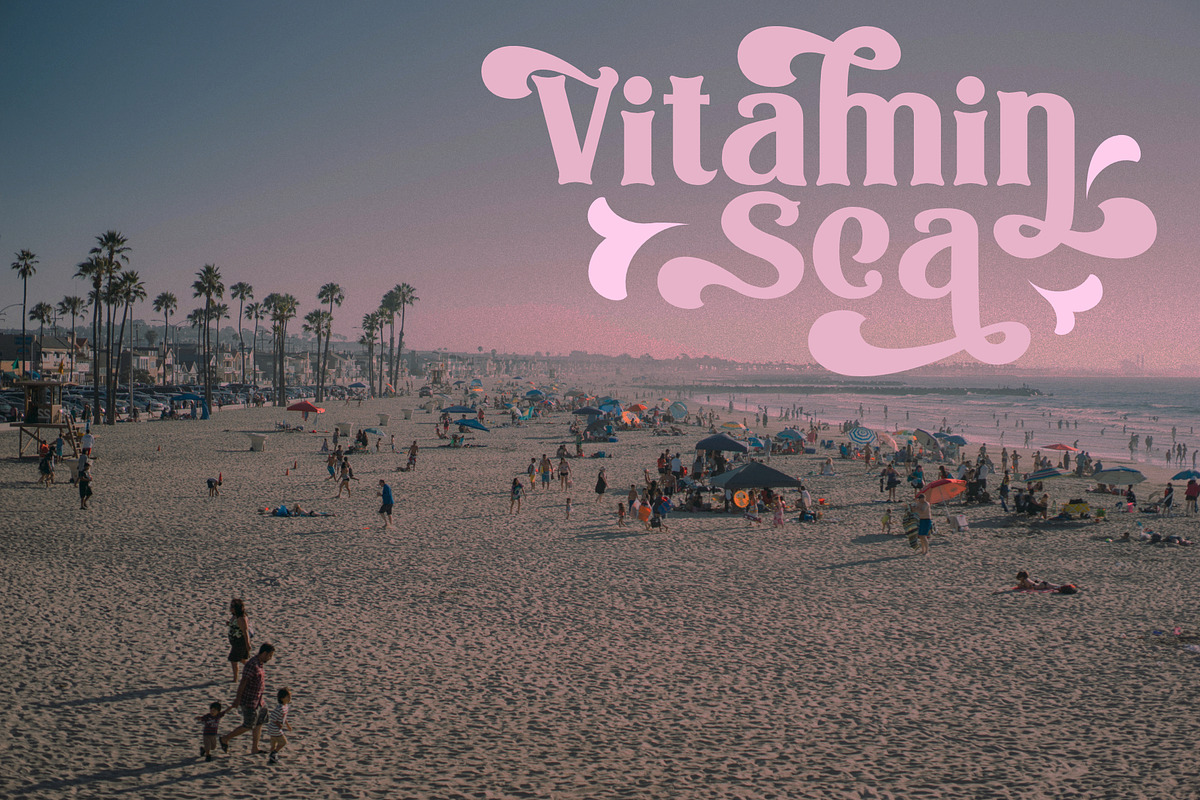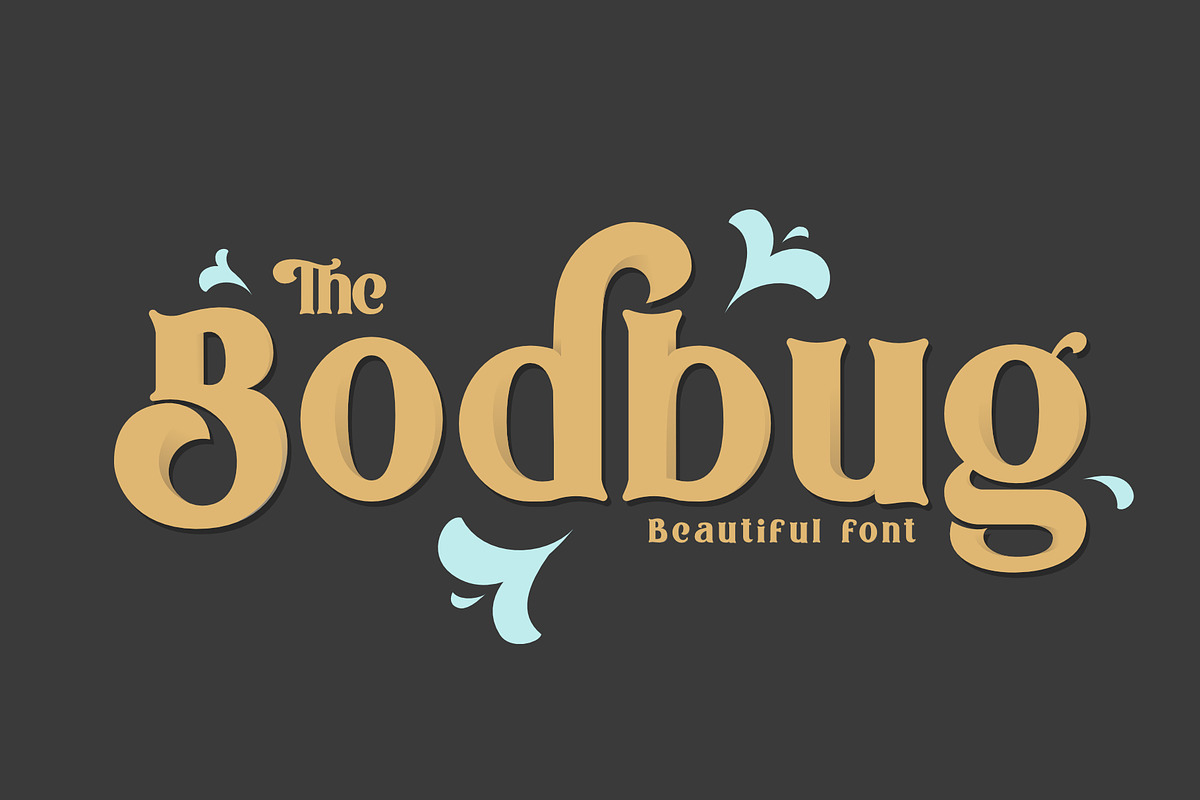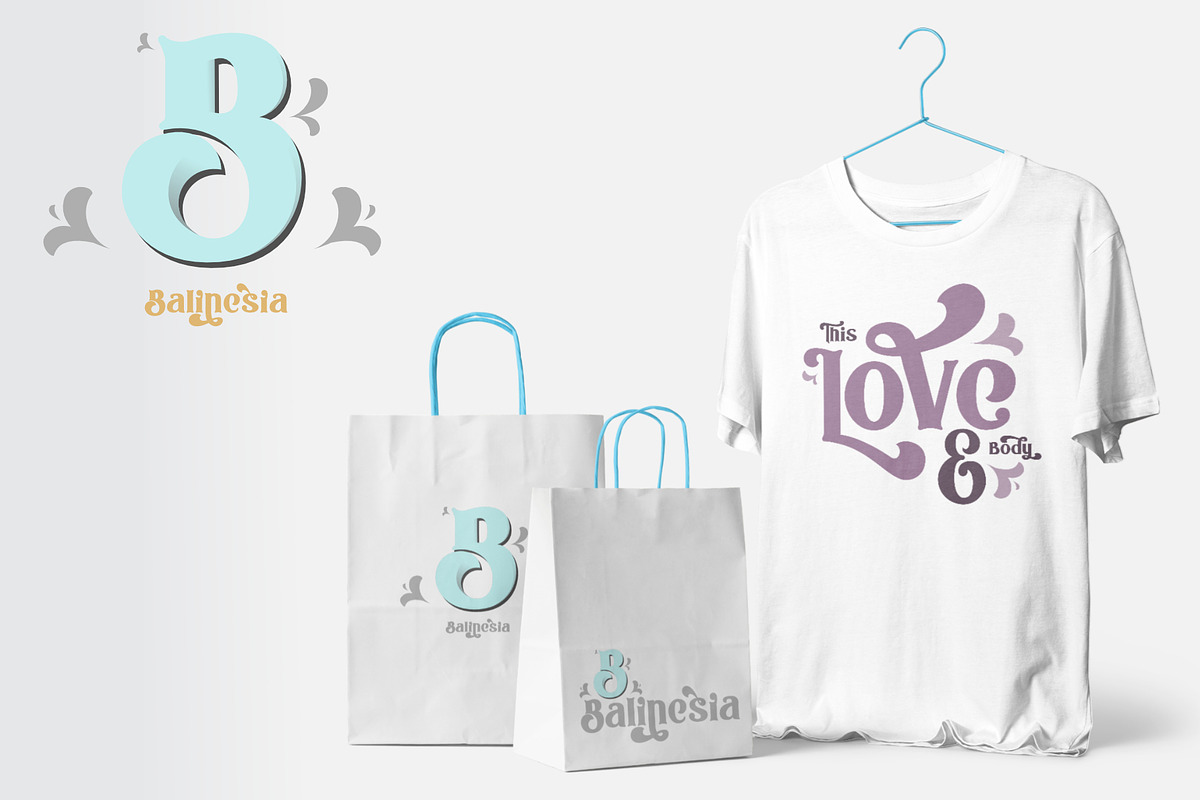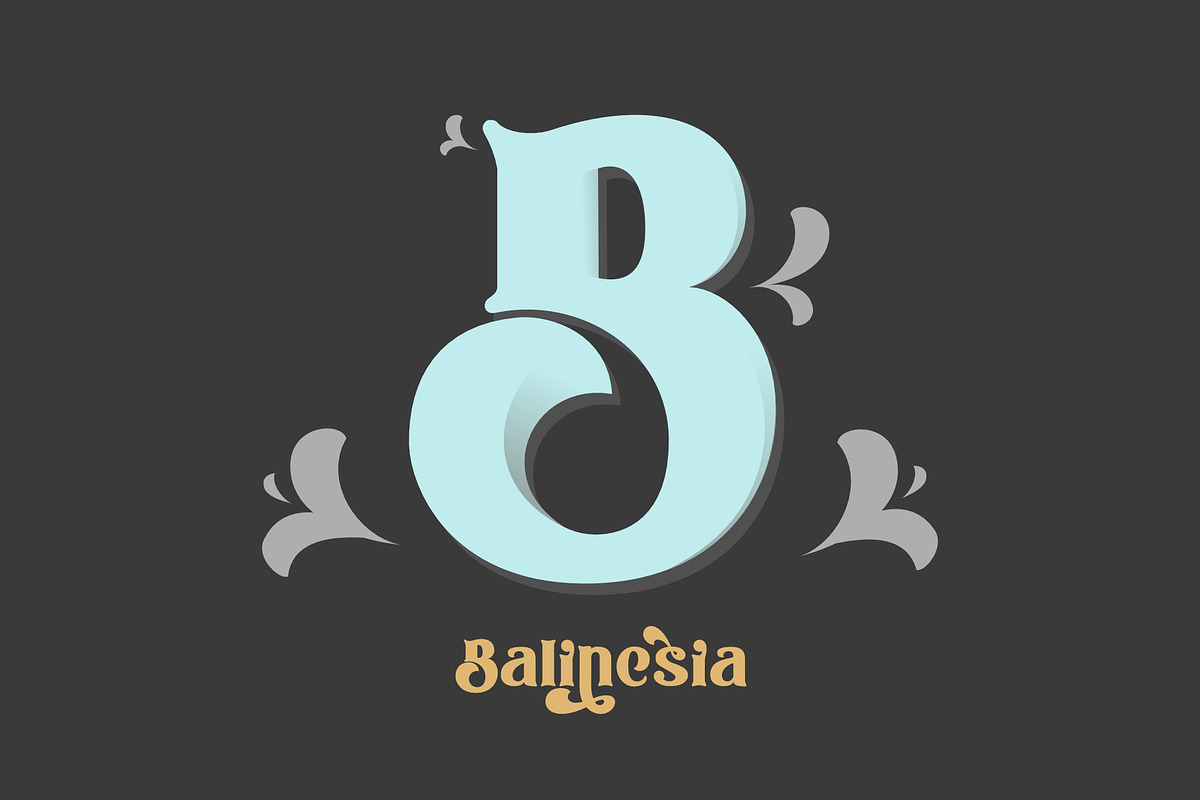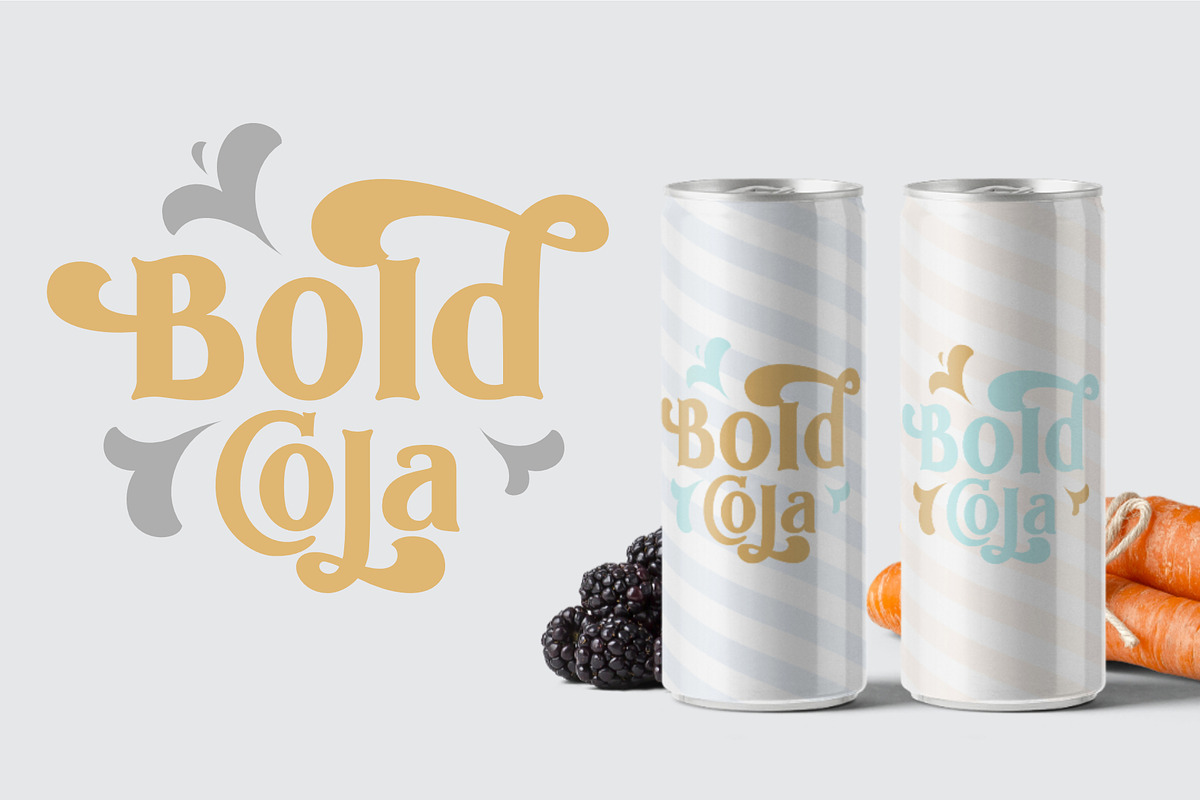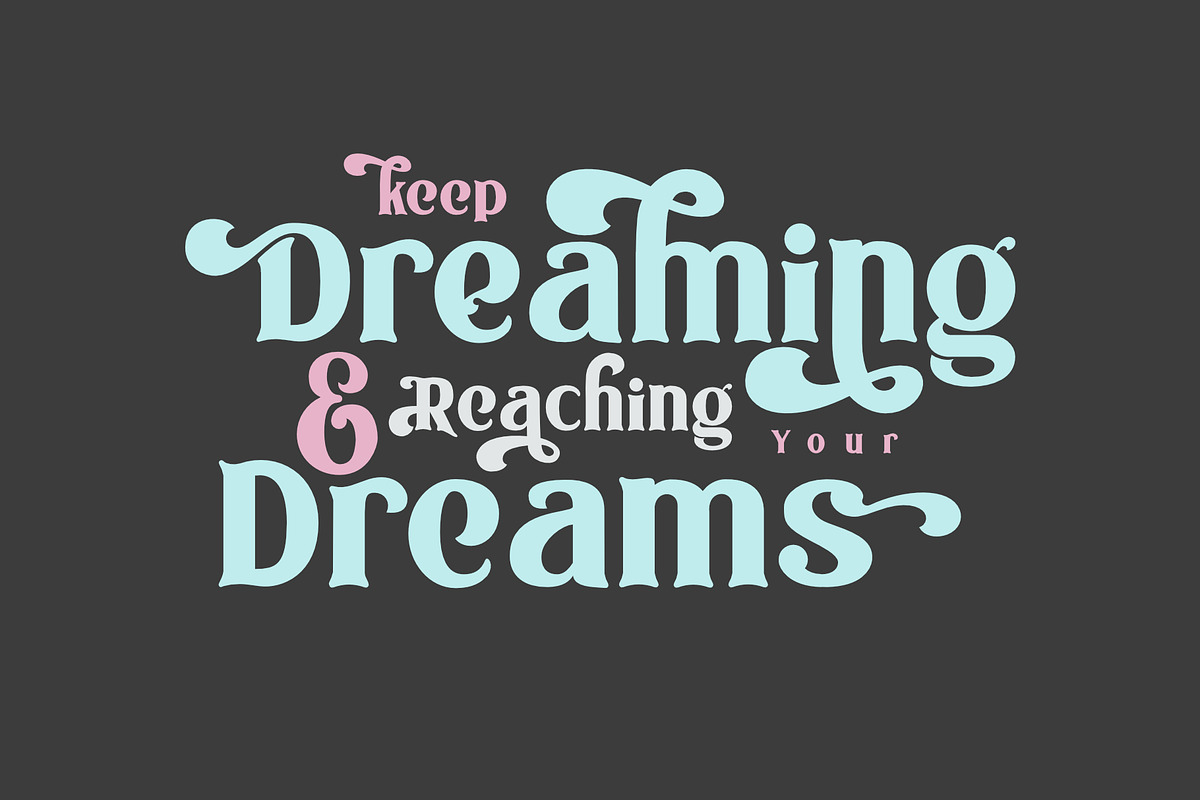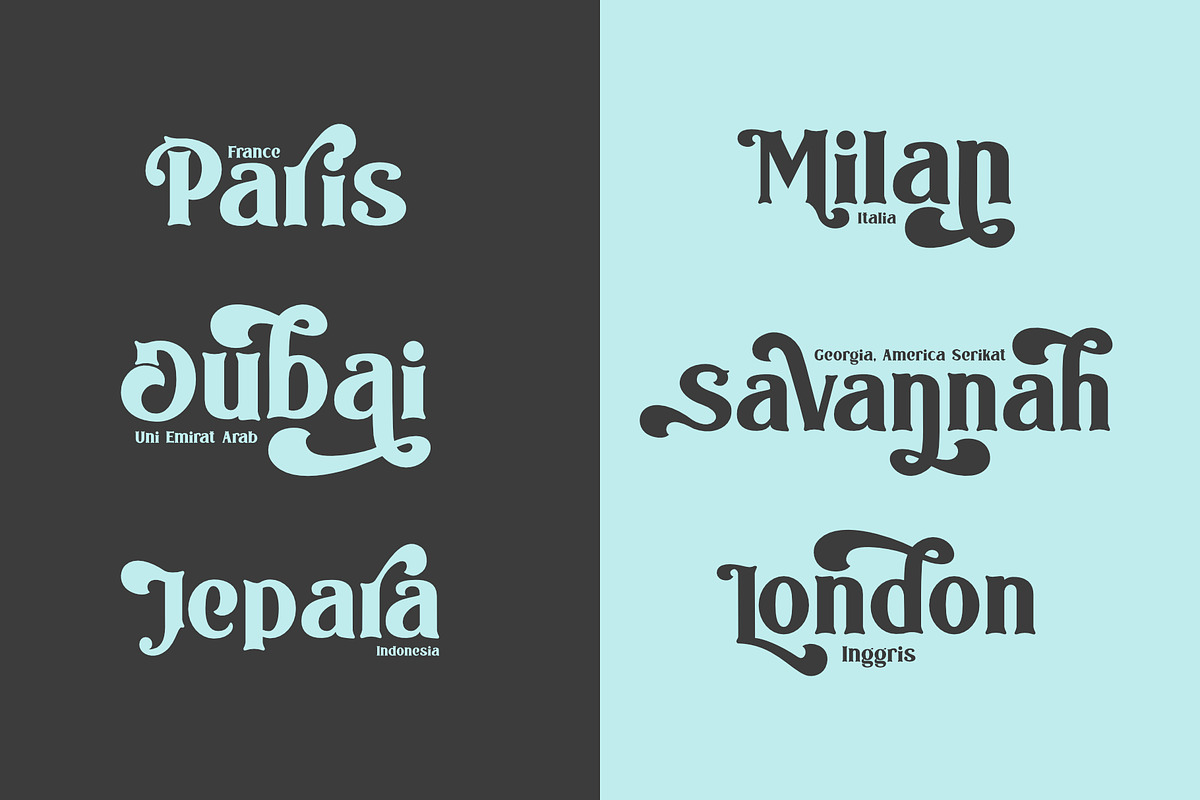
The Bodbug Typeface
The Bodbug Elegant Retro
Introducing Bodbug elegant retro, which combines retro 70 style with balloon typography combined with simple Serif and modern elegance, bodbug is equipped with full features, in each letter there are attractive alternatives and additional bonuses, which make you feel young to realize the design you want. so what are you waiting for?
Bodbug is good for movie titles, posters, logos, quotes, product packaging, clothing designs, book covers and many more uses
Why The Bodbug Typeface is worth a look
The Bodbug Typeface by Khoir fits naturally into Branding, posters, packaging, typography.